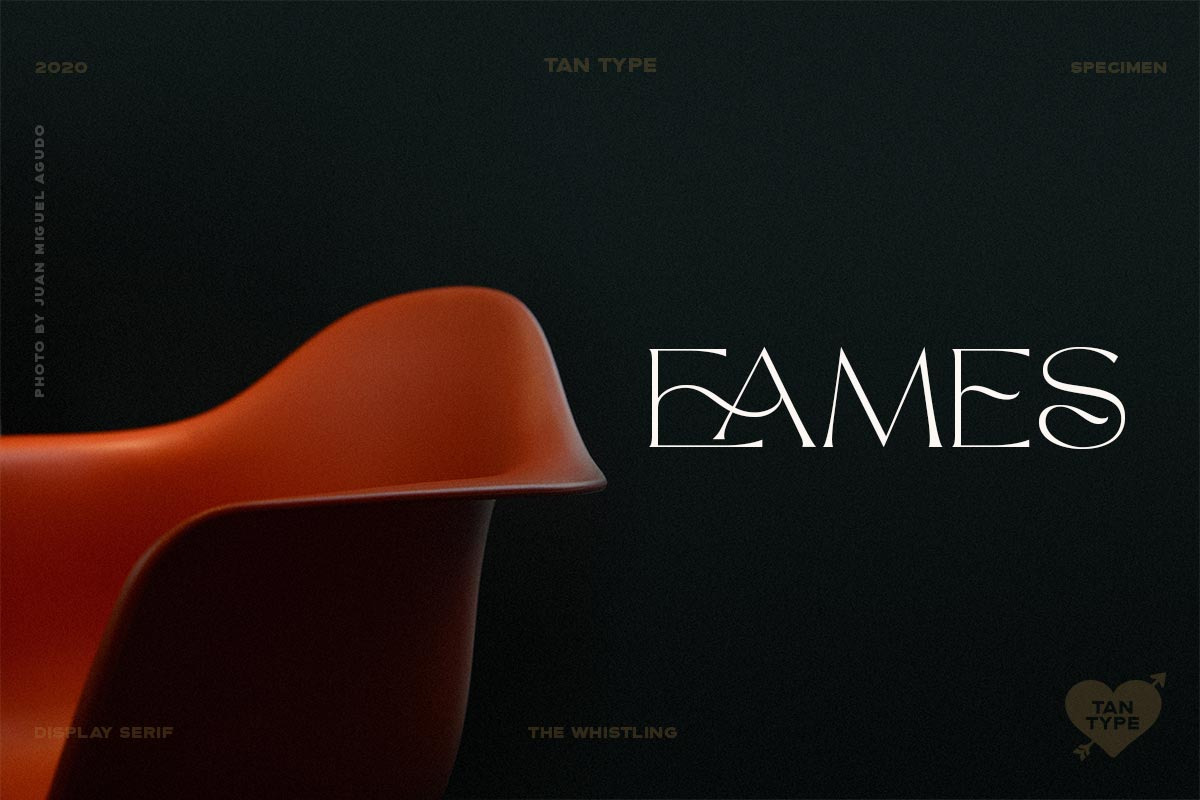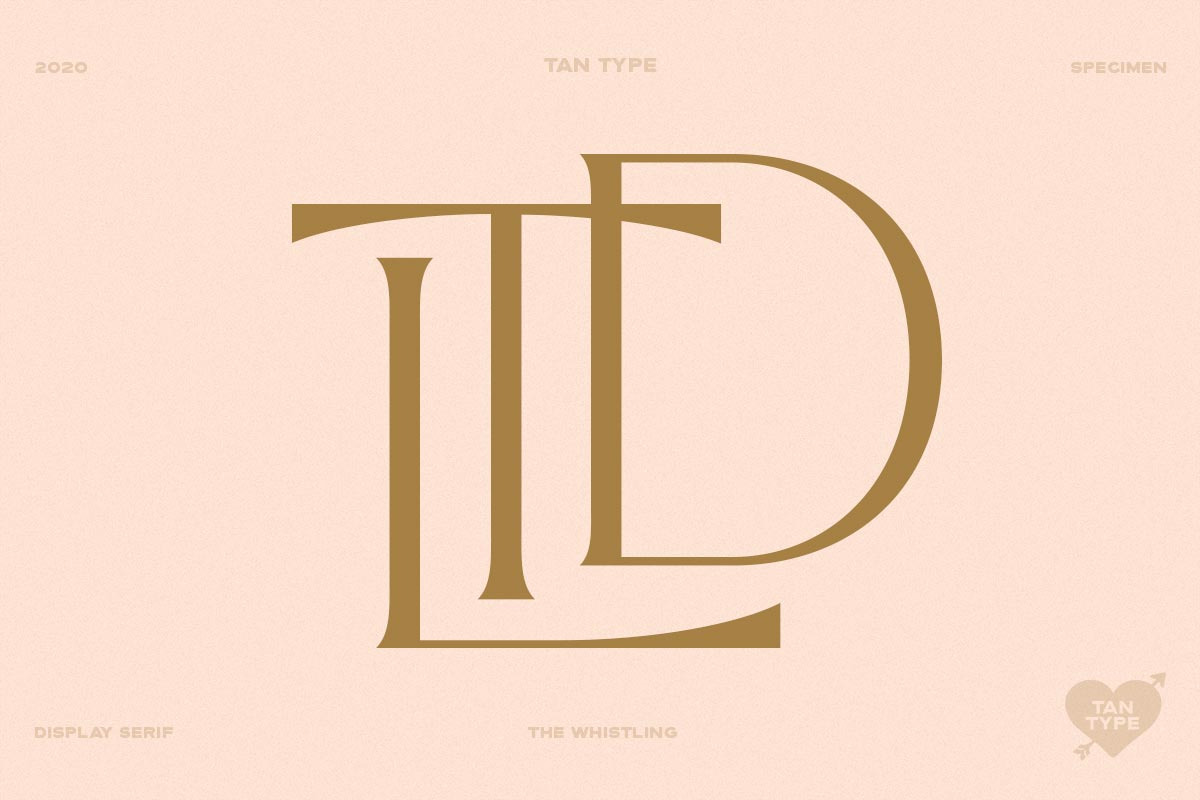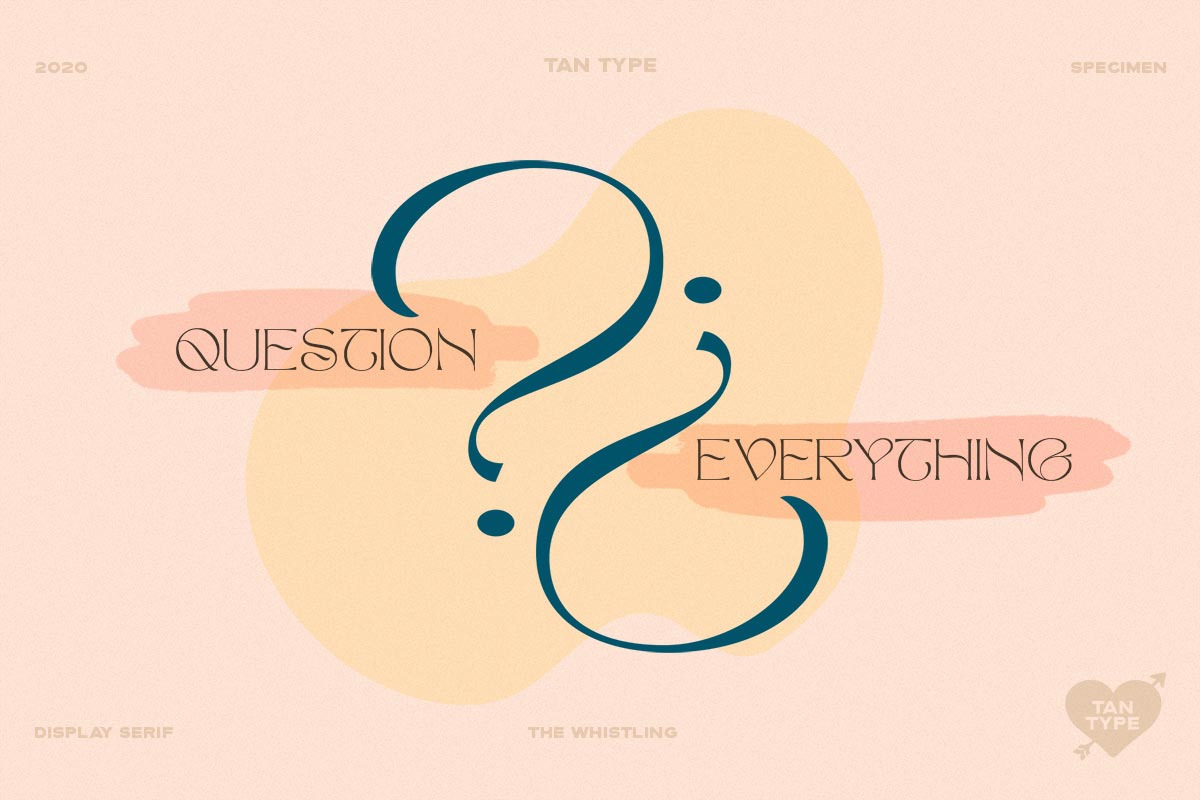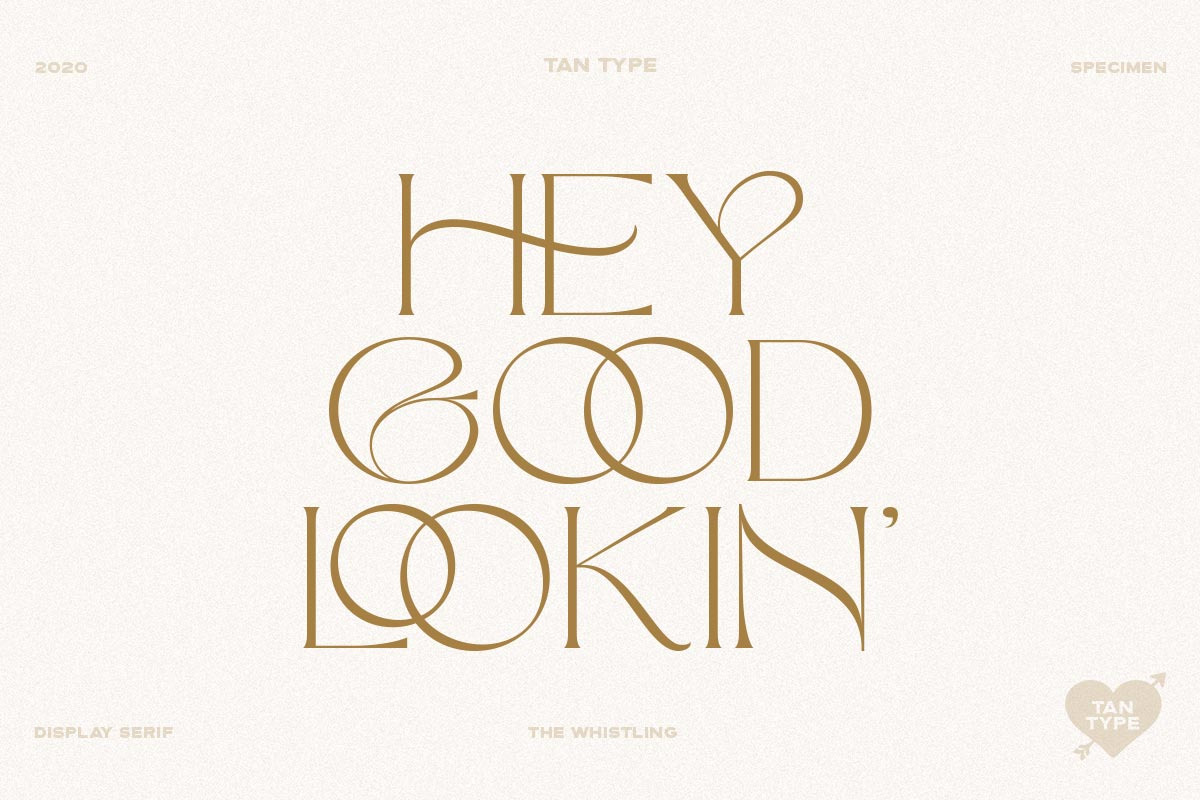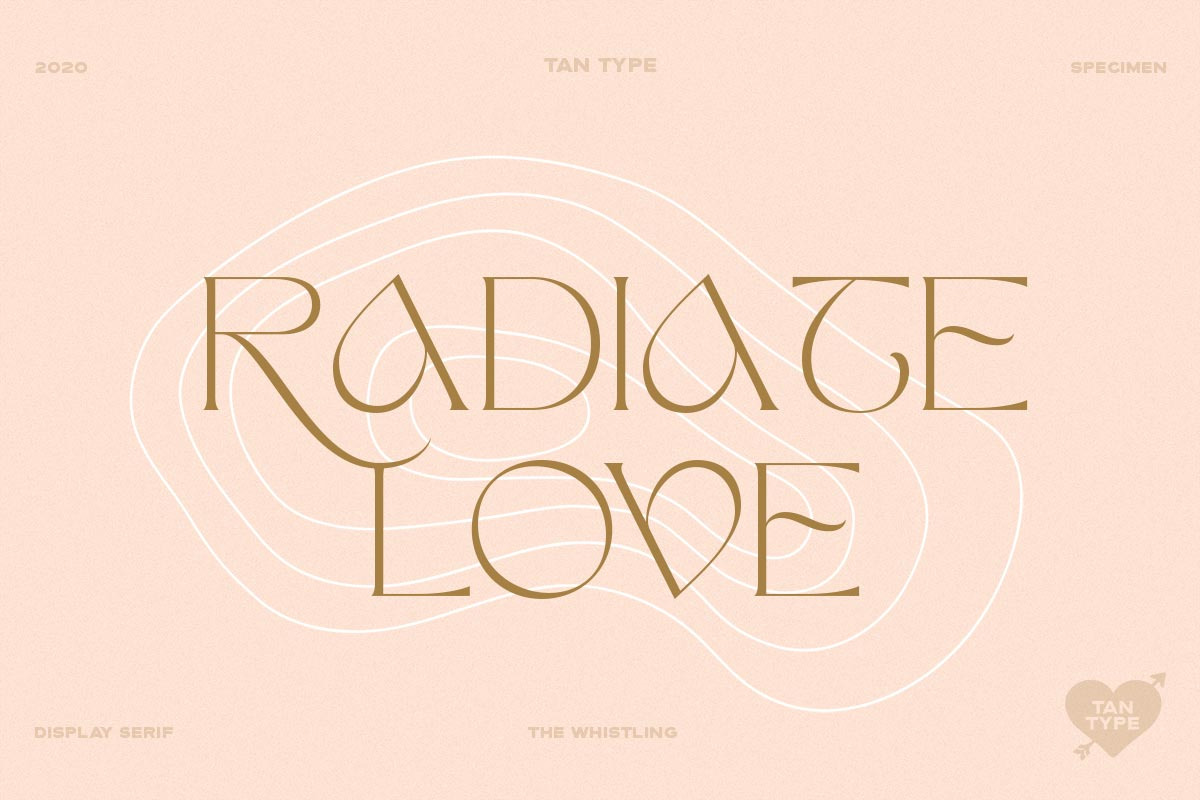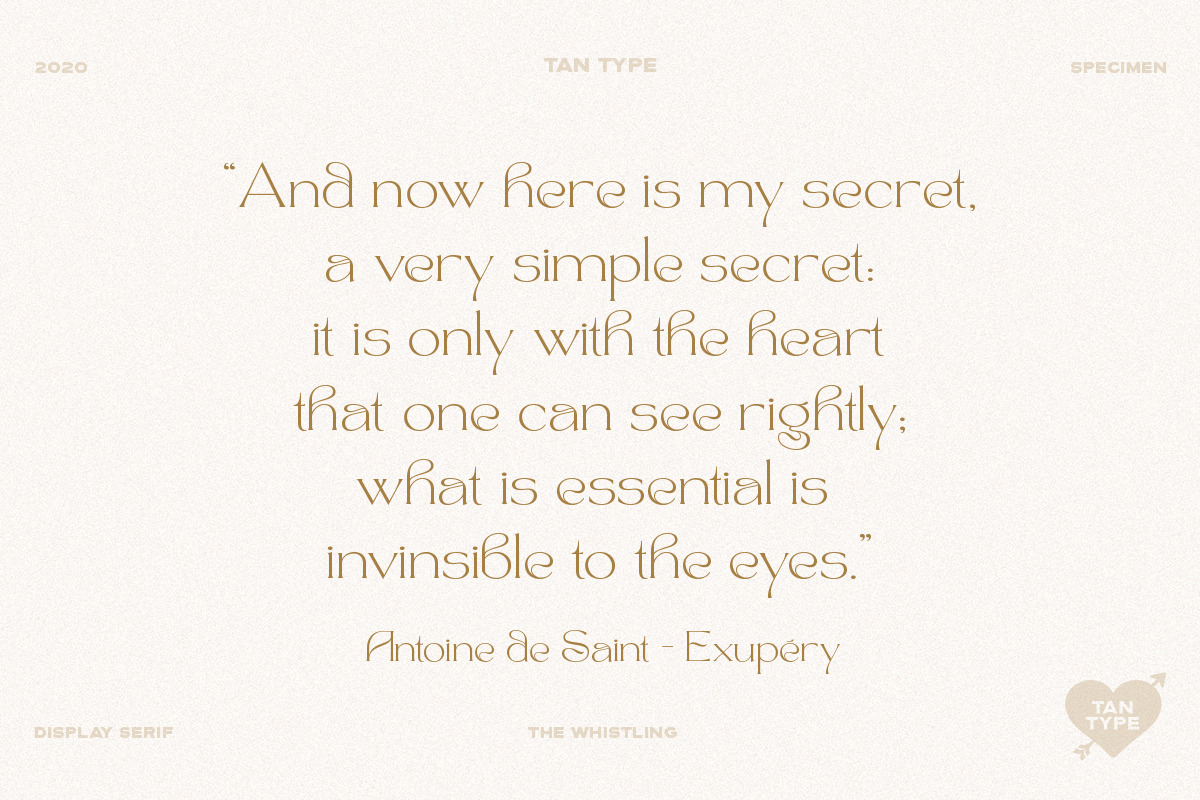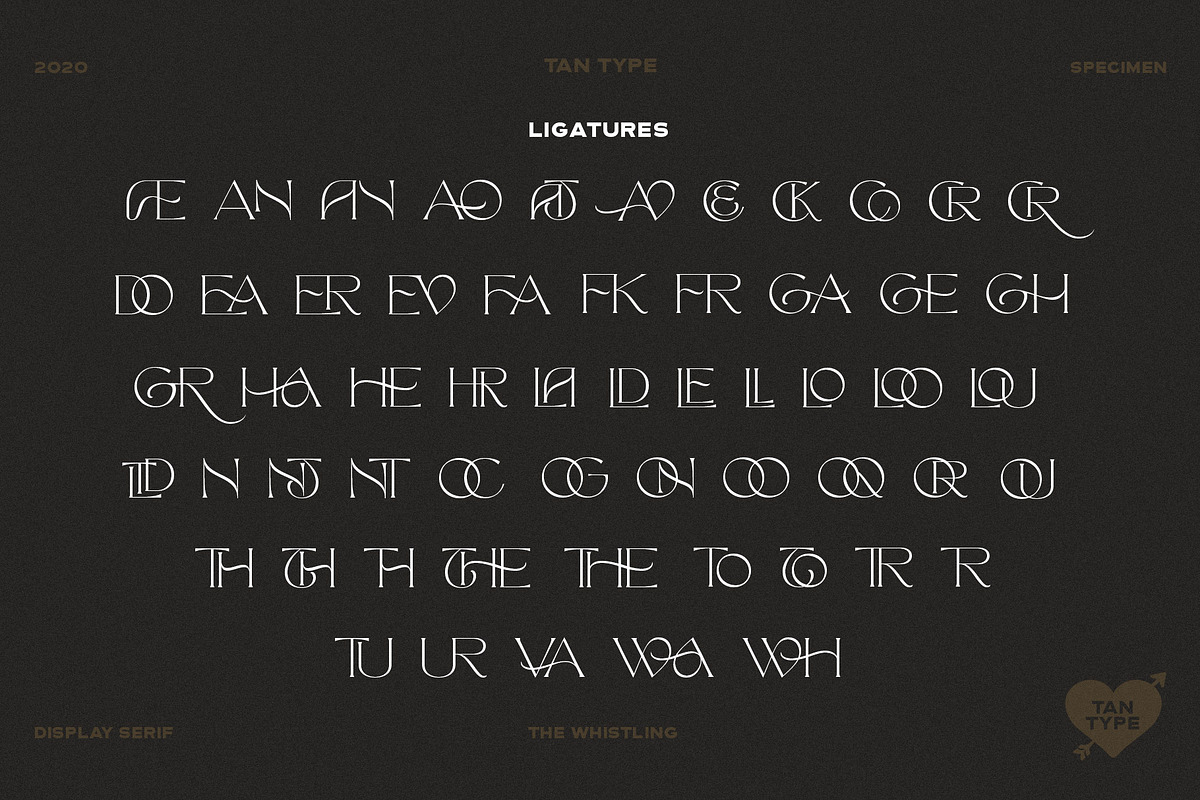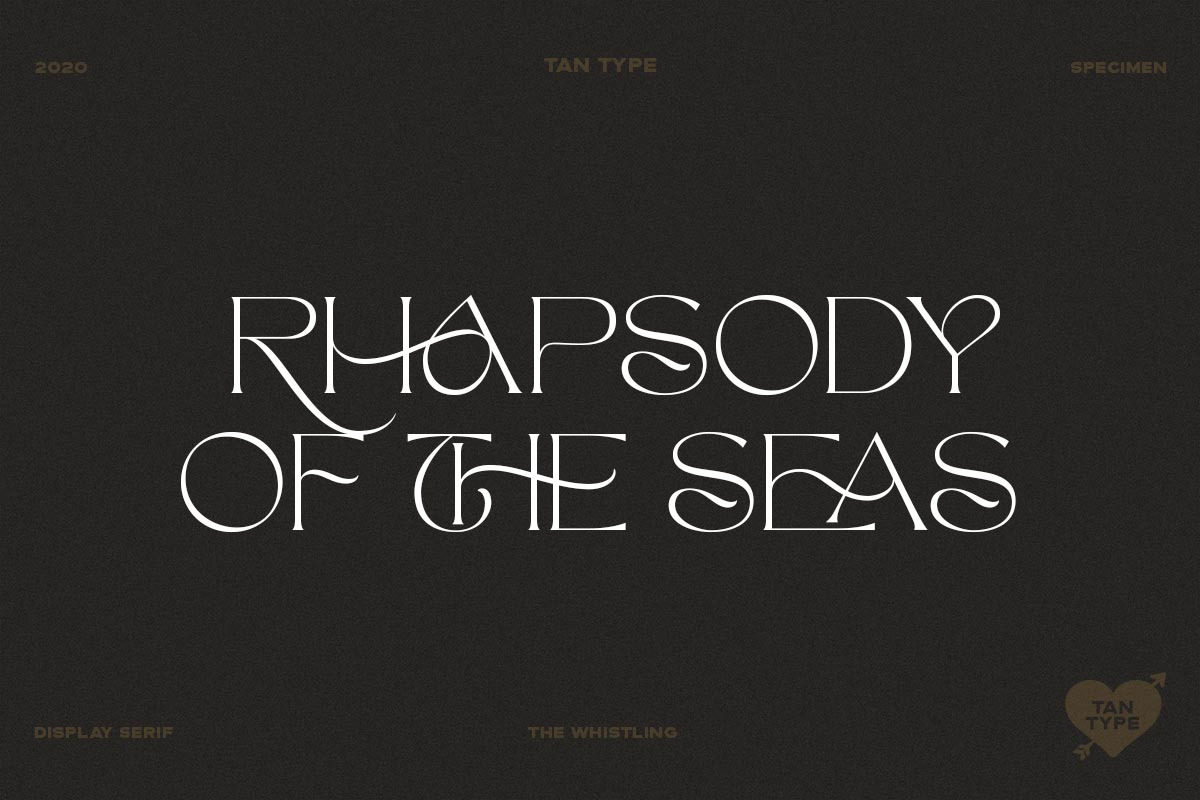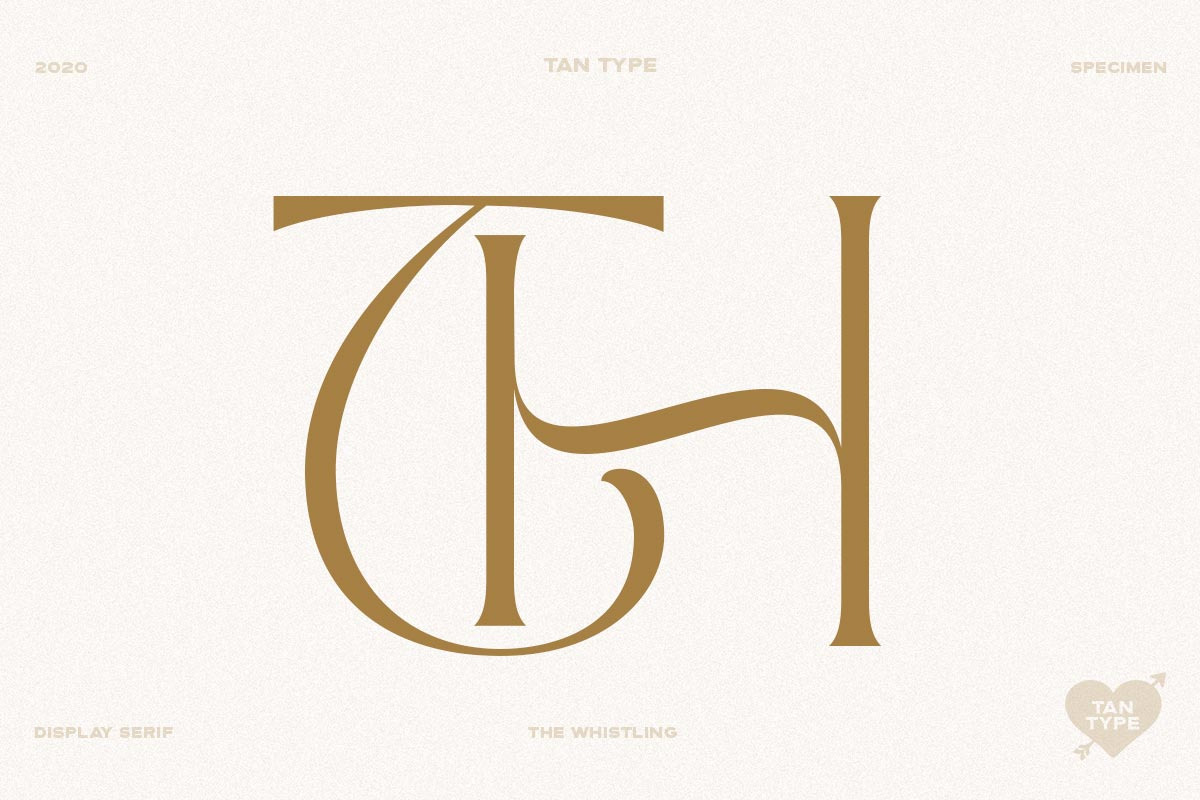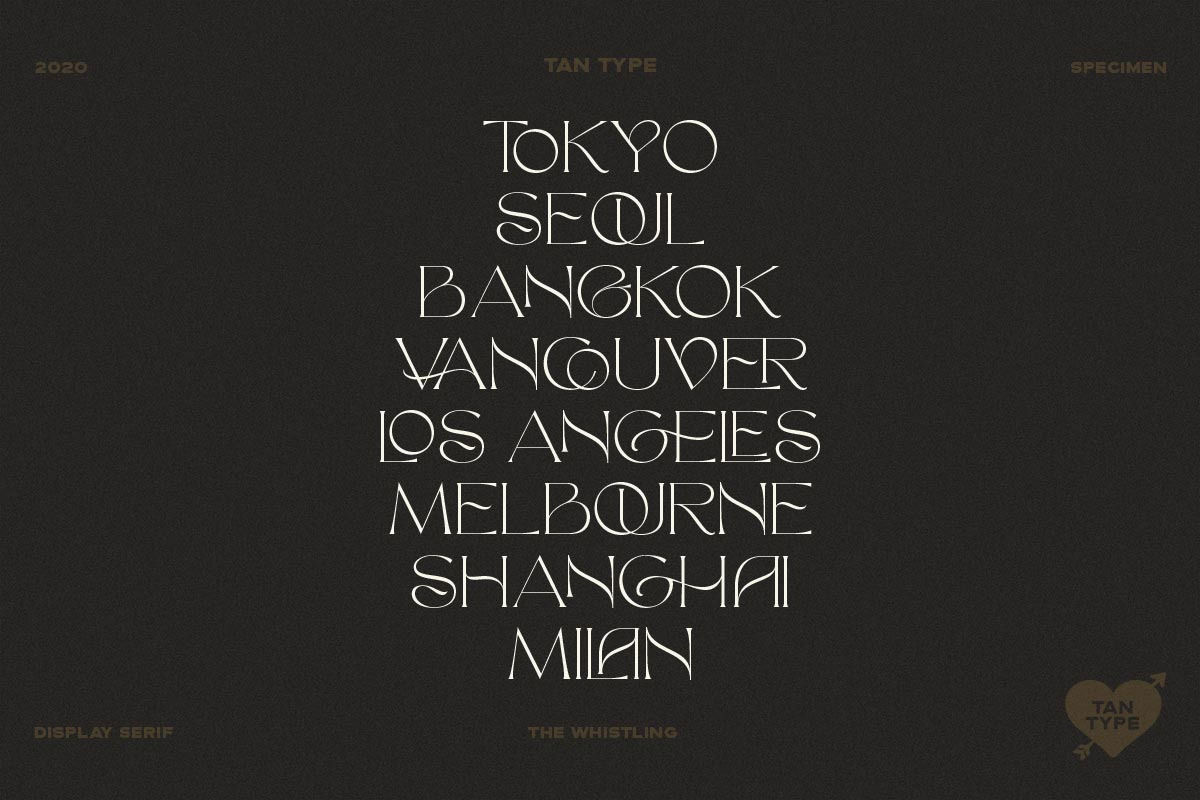
Whistling is classy without being snobby. Suitable if you need if you want to add a bit of luxury or even quirks to your projects. It has over 50 ligatures and even more stylistic alternates.
limited multilingual support.